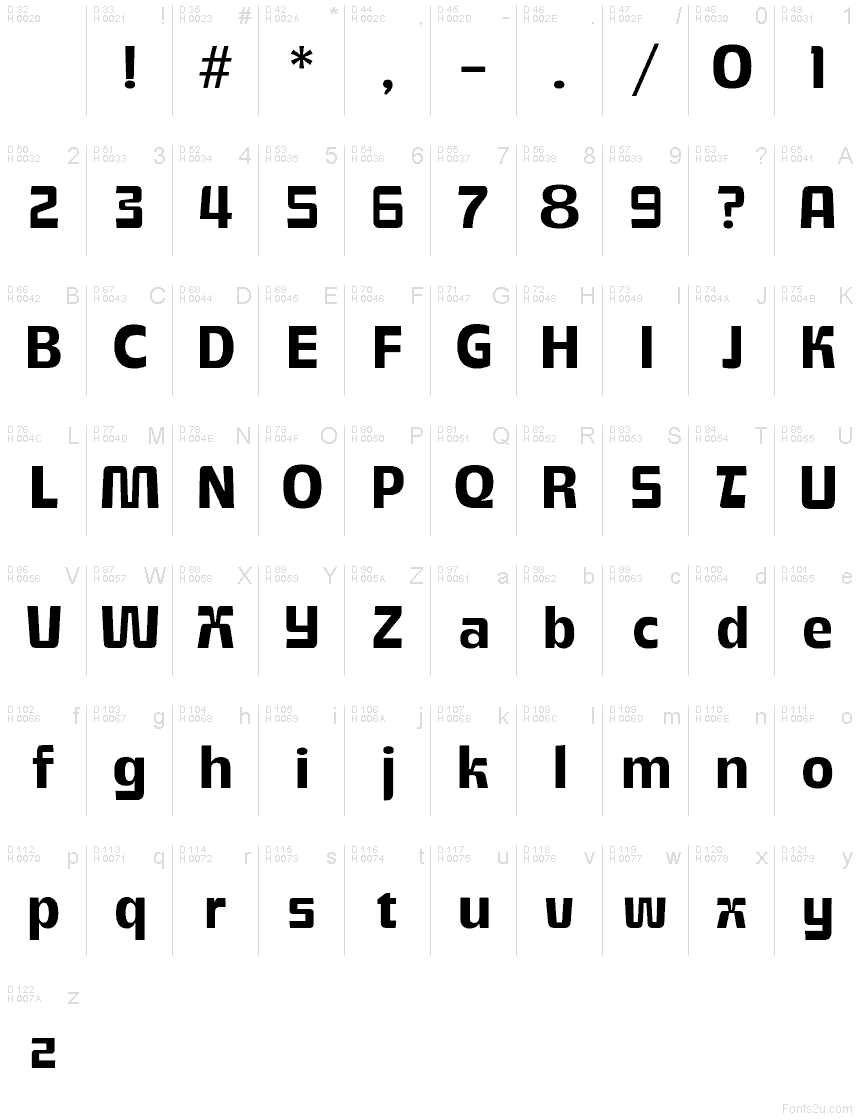
SG Takimon Medium DEMO
SG Takimon font by Studio Gulden is a free bold modular sans serif typeface. Its chunky, squared forms and chiseled cuts feel industrial, while the smooth curves keep it friendly and readable. Letters sit with a steady, block-like rhythm that makes words lock up cleanly, giving headlines a confident, stamped-on presence.
Using SG Takimon, you get punchy impact without shouting—great for gaming titles, tech branding, packaging, posters, badges, and YouTube thumbnails. The compact shapes hold their weight at large sizes and still read clearly in tighter layouts. Try this free font in all caps for banners, then pair it with a neutral grotesk or a simple geometric sans for body copy. A touch of extra letterspacing can add air when you need it.